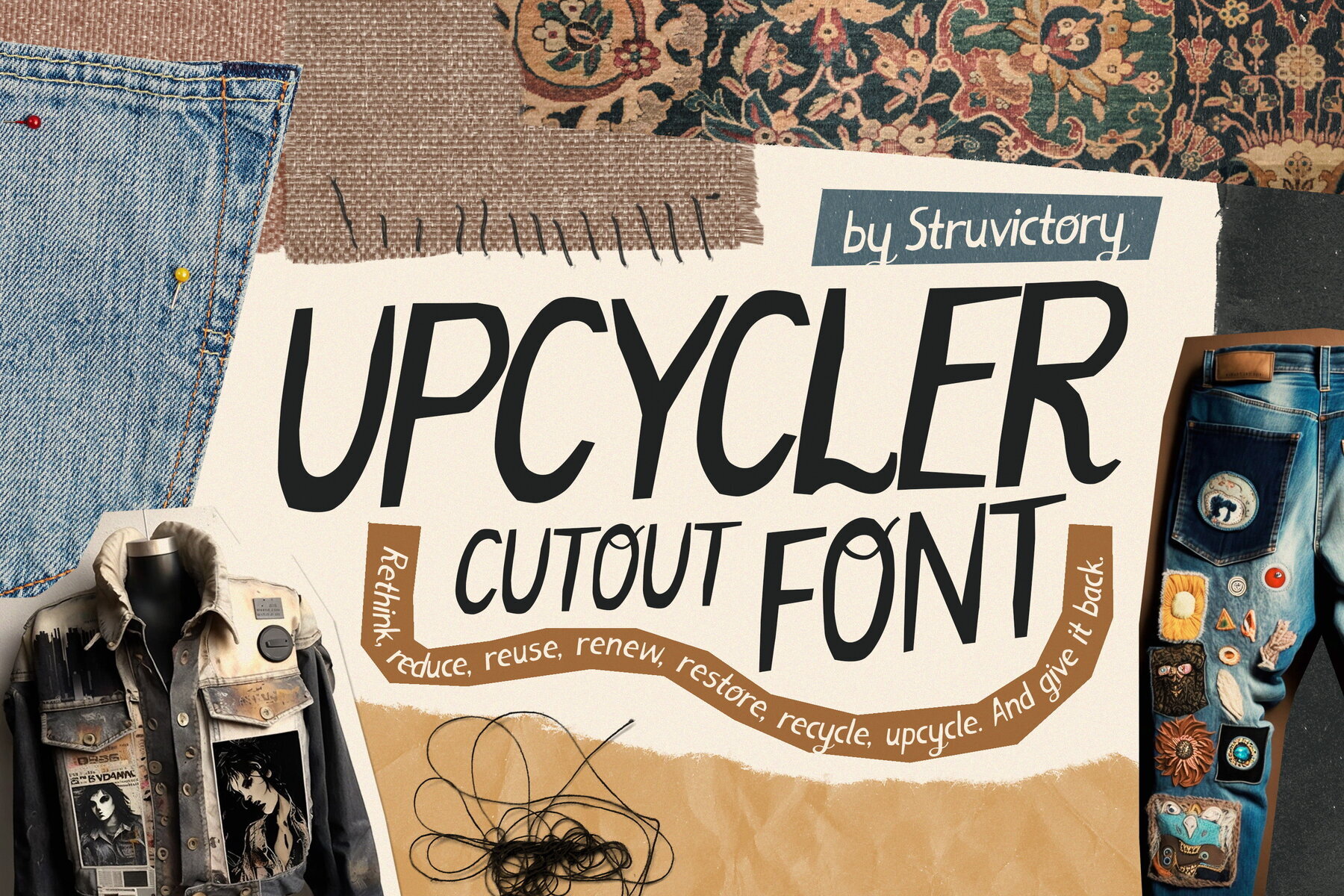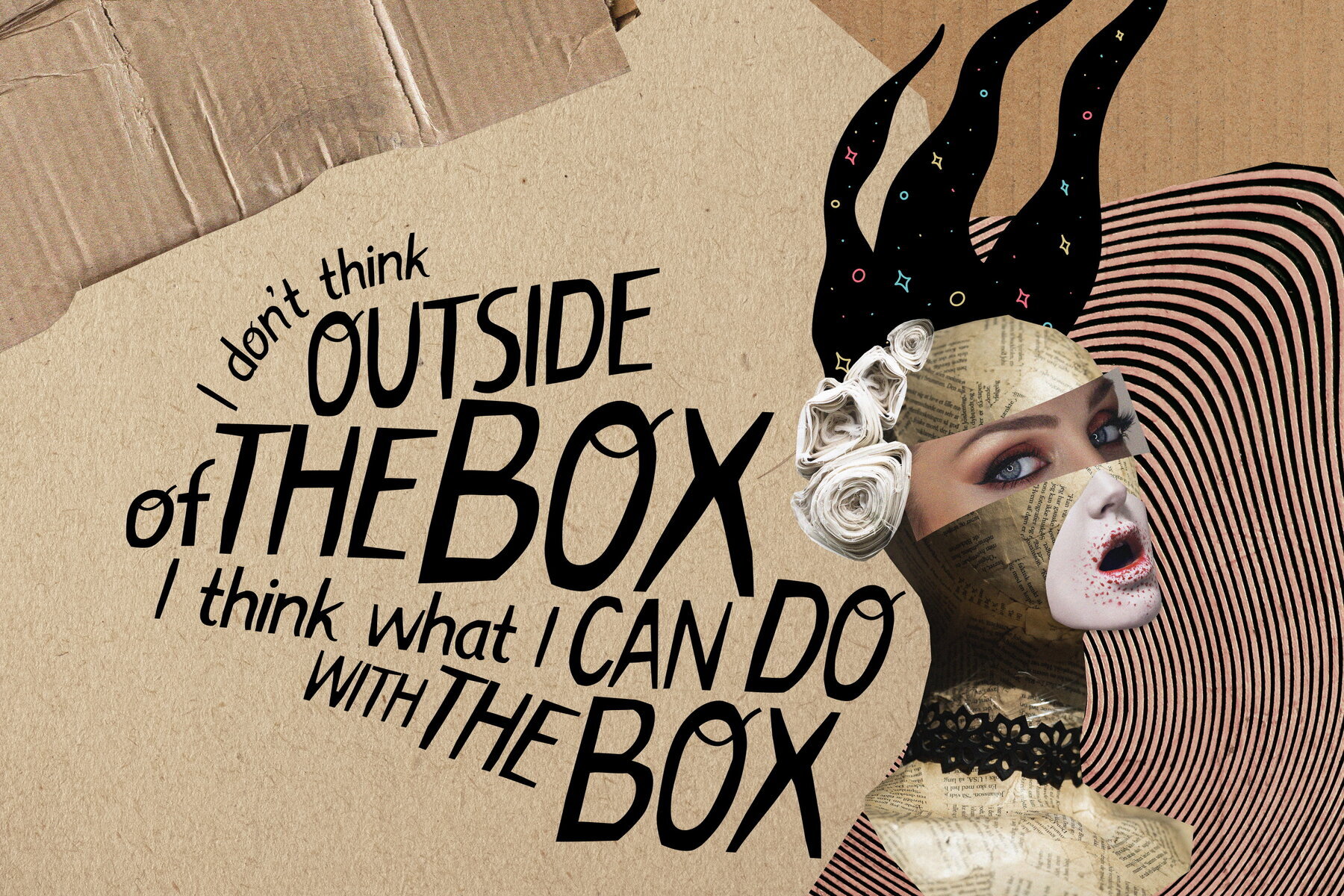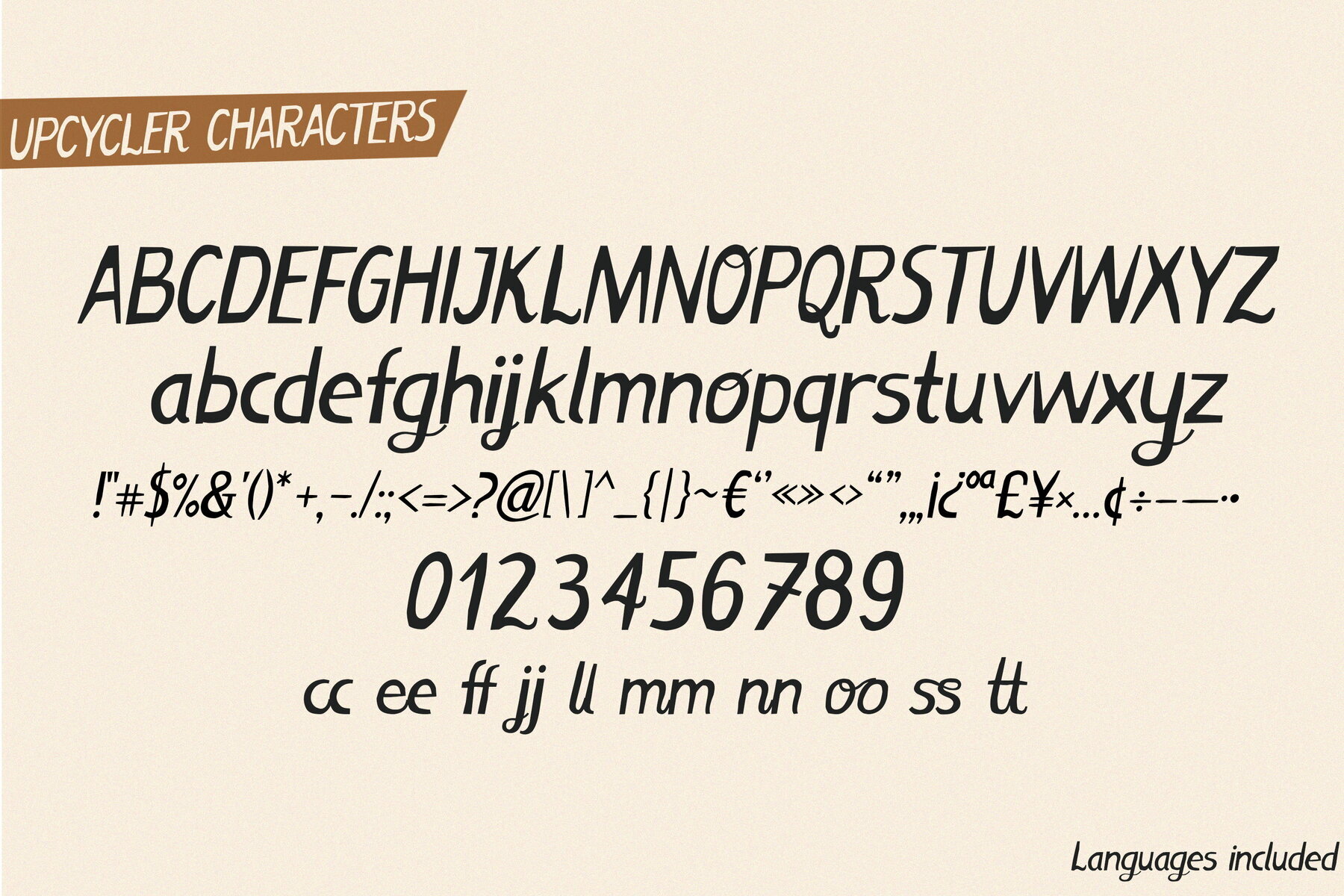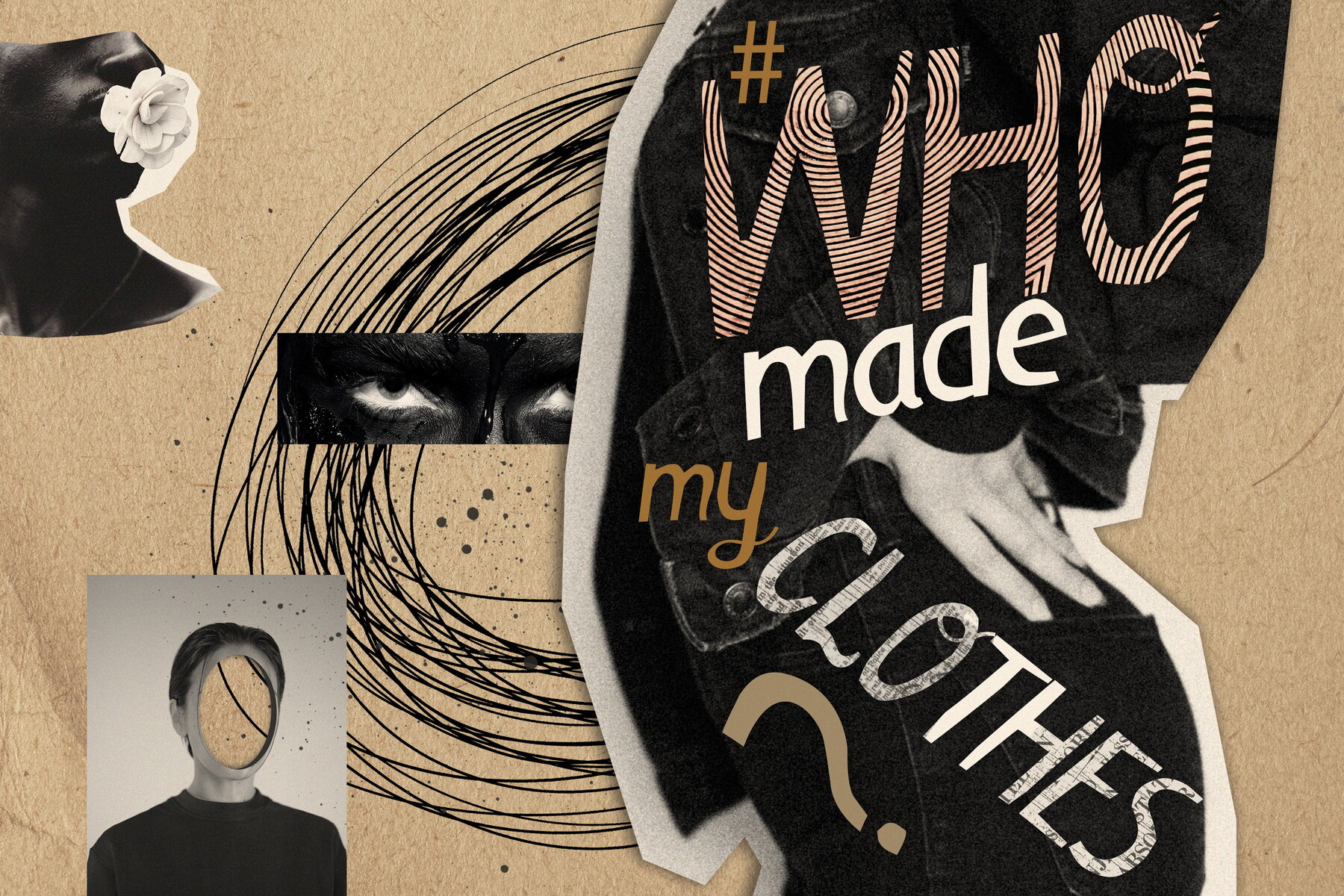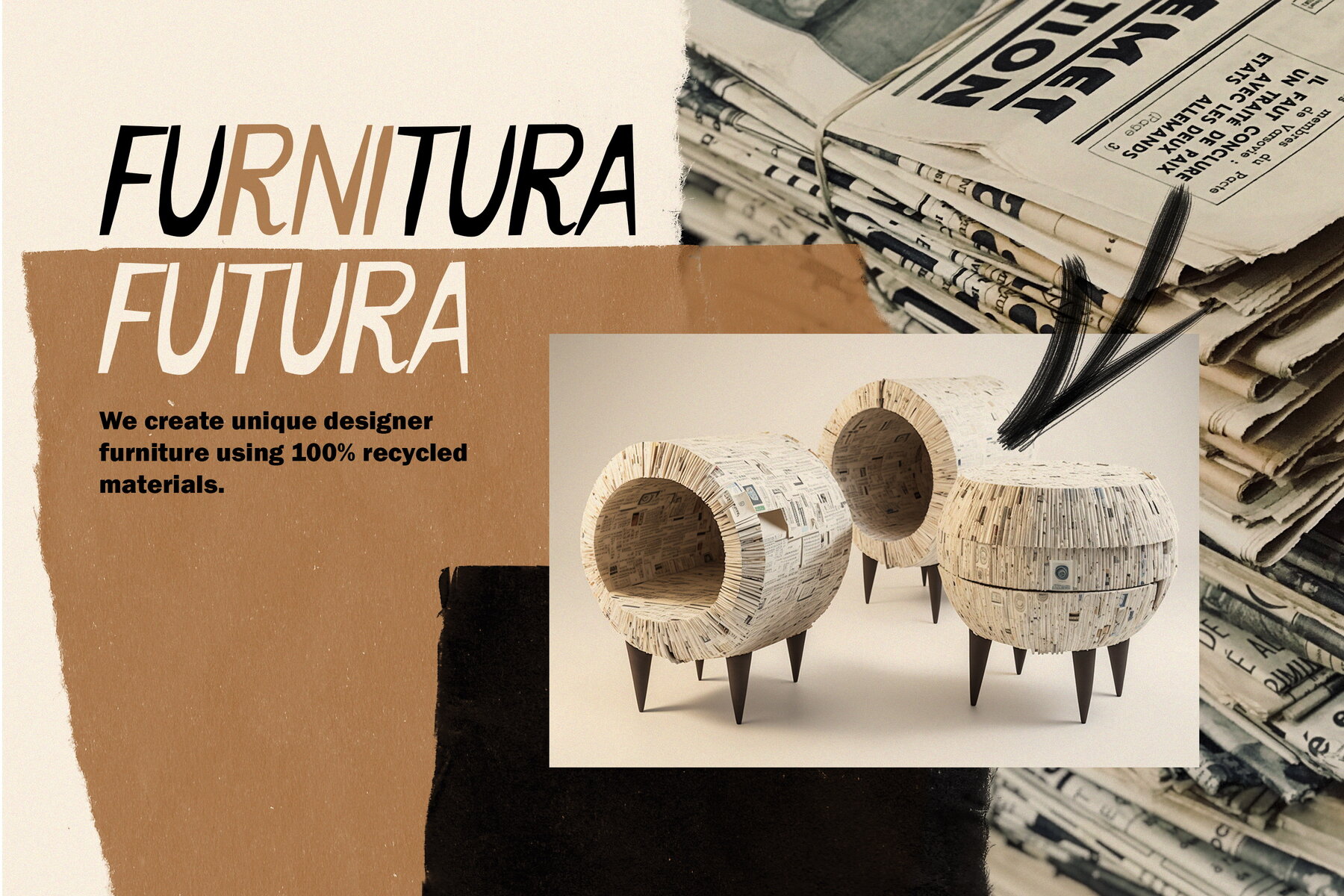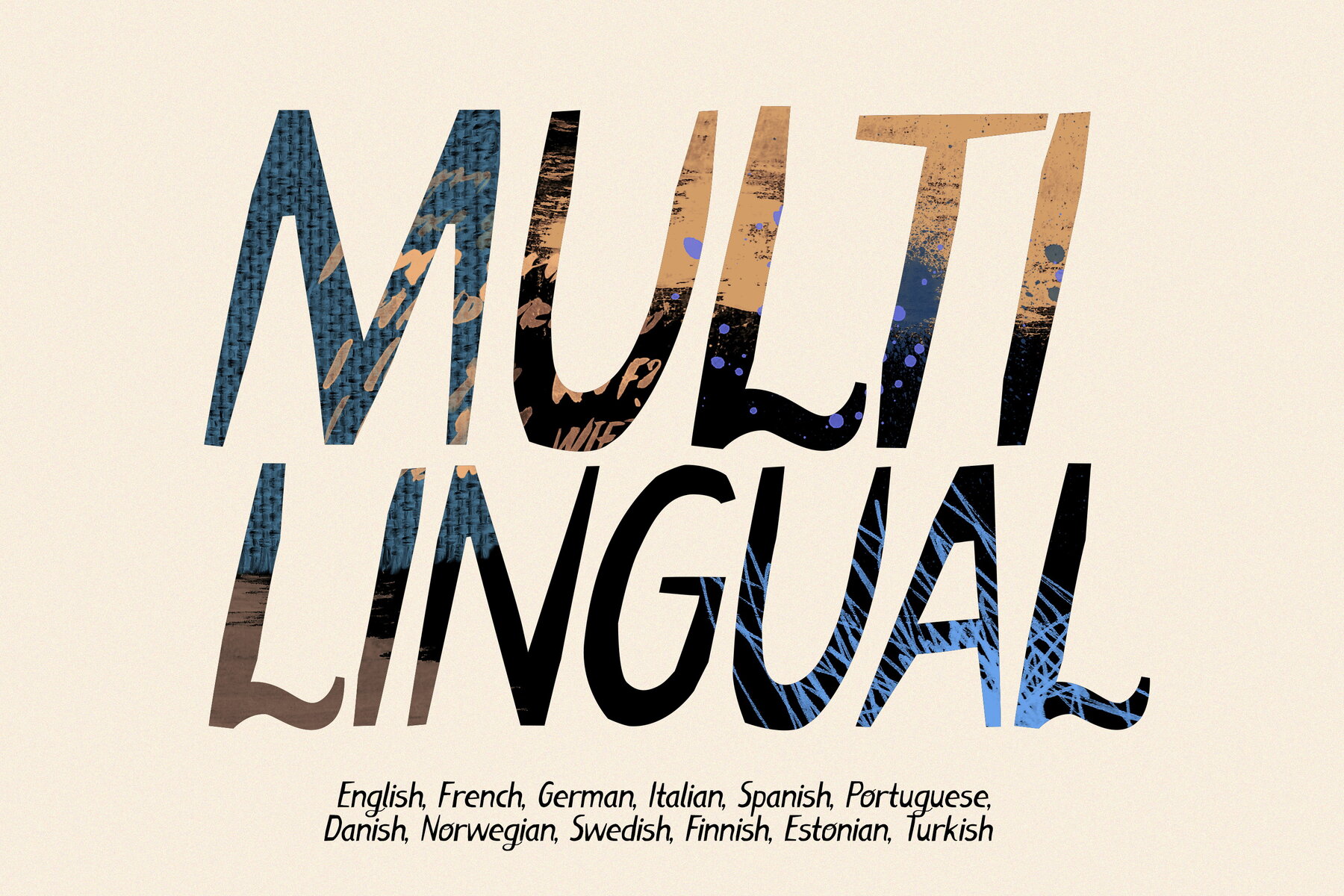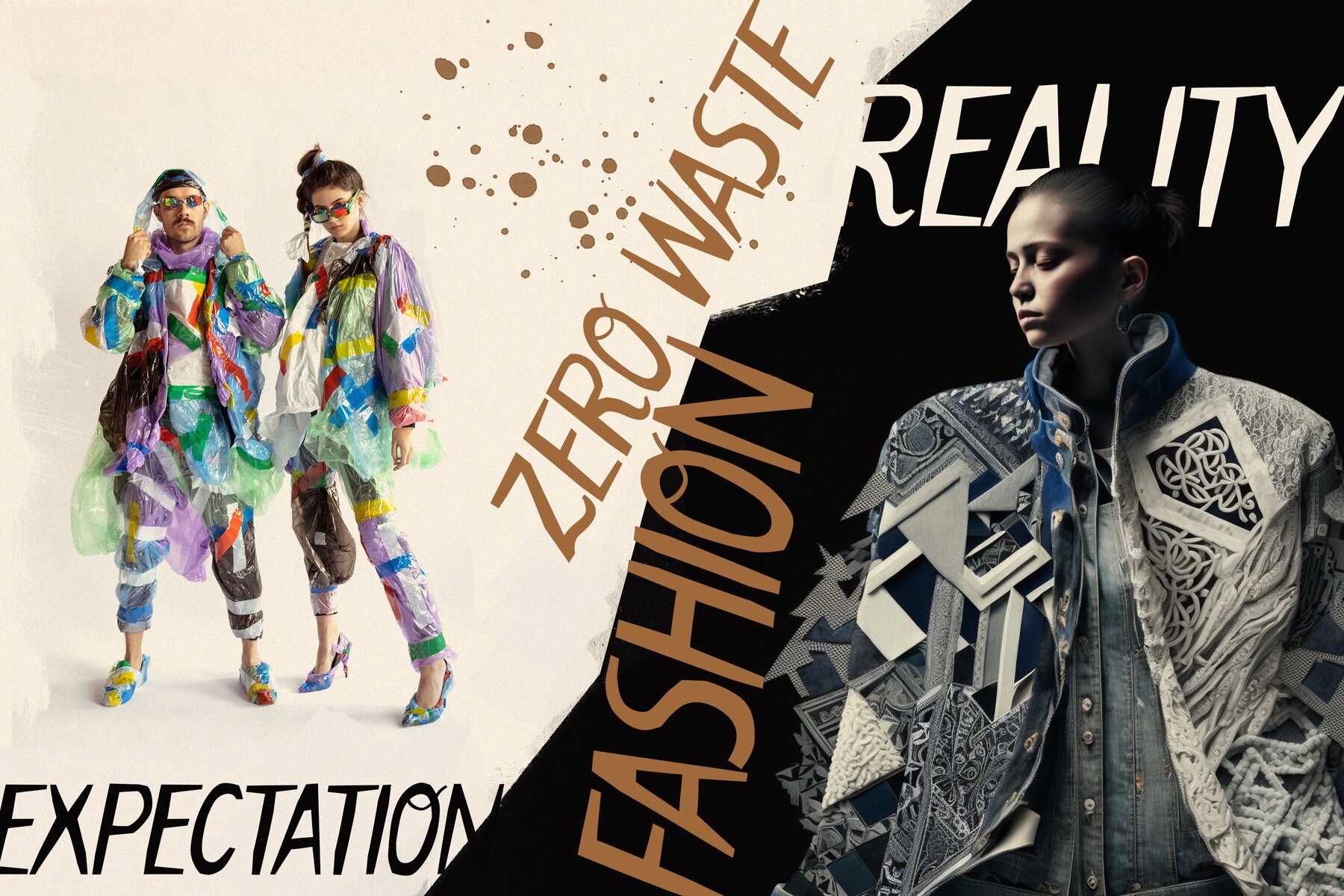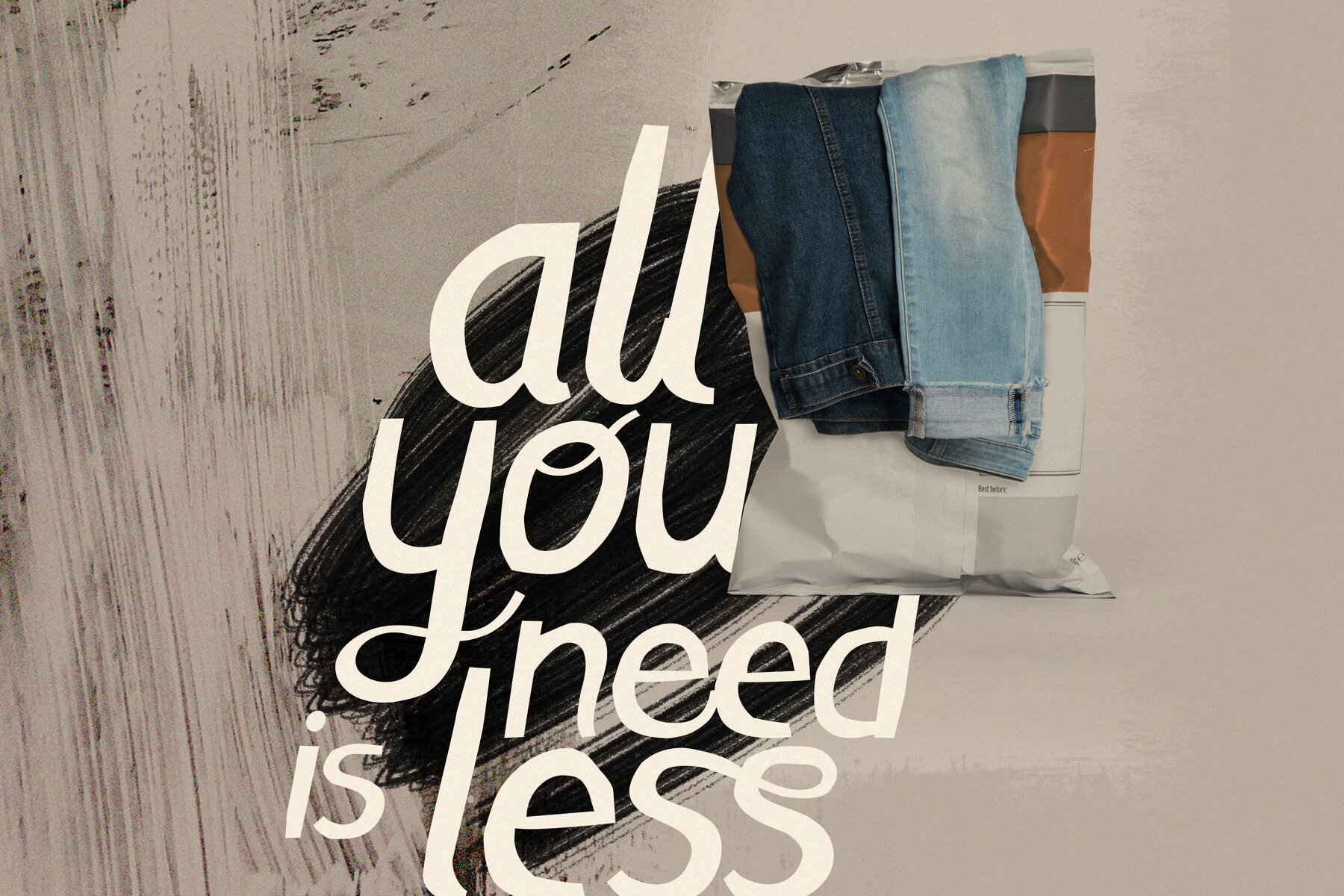
Upcycler Font
Upcycler Cutout
Upcycler by Struvictory.art is a unique font influenced by the principles of ethical fashion and sustainable development. Its design mimics the appearance of paper cutouts, highlighting the zero-waste concept of creating something new from the old. This typeface supports popular Latin-based languages and includes ligatures for some double lowercase letters. Stay responsible and ethical with Upcycler.Upcycler: A Sustainable Typeface Inspired by Ethical Fashion